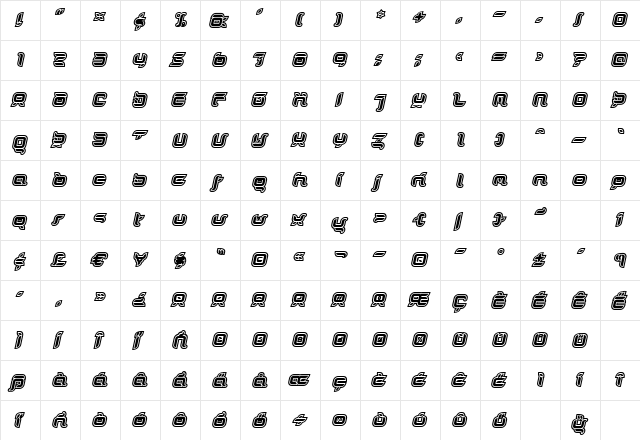
Doris OrangeOutlineItalic Regular
Design Context for Doris OrangeOutlineItalic Typeface
Doris OrangeOutlineItalic is built around its visual character rather than neutral utility — its distinctive forms are designed to make an impression at display sizes. Its italic angle brings a sense of urgency and motion to the letterforms.
Font Pairing: Pair with a clean neutral sans-serif for body copy to let Doris OrangeOutlineItalic's character lead without overwhelming the composition.
Pro Tip: Treat Doris OrangeOutlineItalic as the centrepiece of your typographic hierarchy. One strong heading set in a decorative face can carry an entire layout.